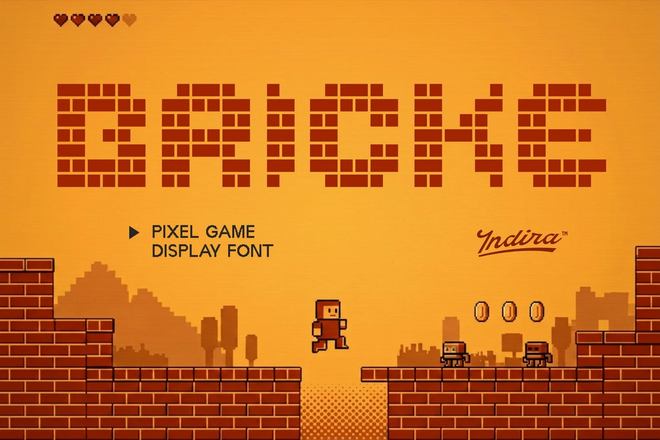
23 Awesome Arcade Fonts for Retro Gaming Projects
There is something undeniably magical about the bold, blocky typography of classic 80s and 90s arcade games.
Whether it is the glowing neon hues or the distinct pixelated edges, these fonts instantly transport us back to a golden era of gaming.
In this collection, we have gathered the best arcade fonts available to give your next creative project that perfect, coin-operated vintage vibe.
Game Paused - Classic Arcade Font
Game Paused is perfect for any pixel game project. This playful font offers six unique styles, including Regular, Slant, Outline, Extrude, Outline Slant, and Extrude Slant, evoking the iconic style of the 00s. Compatible with various software and simple to install, it’s ideal for unleashing your creative potential.
Arcade Zone - Video Game Font
Arcade Zone is a bold, comic display font inspired by retro arcade games. With its chunky shapes and fun character styles, it’s ideal for kids’ designs, gaming projects, and playful visuals. This typeface offers multilingual support and includes both OTF and TTF formats, bringing energetic, nostalgic vibes to posters, branding, and headlines.
Arcade Pixel - Modern Gaming Font
This is a retro pixel font that brings a nostalgic gaming vibe to your creative projects. Perfect for retro game designs, it’s also adaptable for movies, logos, posters, book covers, and more. With OTF, TTF, and WOFF formats included, this font will help your ideas stand out with a charming, pixelated flair.
Game Stage - Pixel Arcade Font
Game Stage is a playful and nostalgic typeface perfect for adding a fun twist to your projects. With bold, chunky shapes and vibrant colors, it channels the excitement of classic arcade games. Game Stage supports multiple languages and includes uppercase, lowercase, numerals, punctuation, and stylistic doodles, available in TTF and OTF formats.
Rocabe - Retro Arcade Font
Rocabe is a retro arcade font that captures the nostalgic essence of classic gaming. Blending pixelated charm with modern readability, it’s perfect for vintage-themed designs, indie games, and pixel art. Available in various formats, it offers multilingual support and accessible characters, making it a versatile choice for creative projects that seek a touch of authentic nostalgia.
Arcade Quest - 8Bit Gaming Font
Arcade Quest is a pixel-perfect font that captures the essence of ’80s arcades, offering nostalgia and functionality for modern designs. Ideal for game developers and designers, it includes standard glyphs in a TTF file, compatible with PC and Mac, and seamlessly integrates with major design software for a vibrant retro touch.
Retroid - Retro Arcade Font
Retroid is a vintage arcade-themed font that captures the charm of 8-bit console graphics with its pixelated design. Perfect for adding a nostalgic touch, this old-school typeface offers multilingual support, making it versatile for different projects.
Retro Pixel - Arcade Gaming Font
Retro Pixel is an arcade-themed font that captures the essence of classic gaming. Perfect for gaming logos and pixel art, this typeface merges retro charm with modern flair. Featuring OTF, TTF, and WOFF formats, it offers easy installation, multilingual support, and works seamlessly on Mac and Windows.
Oldbitz - Pixel Arcade Font
Oldbitz brings back the golden age of gaming with its bold, pixelated style. Perfect for game covers, posters, or album art, it combines retro vibes with a hint of vintage gothic flair. With two styles—Regular and Shadow—it offers versatility for any creative project. Its multilingual support and comprehensive set make designs truly stand out.
Warnet Crime - Arcade Pixel Font
Warnet Crime is a bold, futuristic pixel font perfect for bringing retro gaming nostalgia with a modern twist. With sharp, blocky edges and 8-bit-inspired geometry, it’s ideal for arcade-themed visuals, sci-fi projects, and tech branding. This font supports multiple languages and is available in OTF, TTF, and WOFF formats, making it a versatile choice for creative projects.
Arcade Funk - Modern Arcade Font
Arcade Funk is a vibrant, modern arcade-themed font that blends punk aesthetics with a touch of brutalism. Perfect for game interfaces, posters, and promotional materials, its unique design maintains striking legibility while injecting rebellious, futuristic energy into any project. Ideal for those seeking a bold and unconventional edge, Arcade Funk sets your designs apart.
Valmeria - Medieval Game Arcade Font
Step into the pixel kingdom with Valmeria, a unique arcade-themed font that merges medieval blackletter style with pixel art charm. Perfect for pixel games or vintage posters, it features Regular and Extrude styles, providing both clean and bold 3D looks. With a complete set of characters and multilingual support, it’s ideal for standout designs.
Pixel Bricke - Classic Arcade Font
Pixel Bricke is a pixel-based font that artfully captures the essence of retro arcade games. With its blocky, nostalgic design, it adds a fresh twist to classic gaming visuals. Ideal for game titles, graphics, and branding, Pixel Bricke delivers bold and memorable style, supporting formats like OTF, TTF, WOFF, and WOFF2.
Bitmap - Pixel Arcade Font
Bitmap is a nostalgic pixel font inspired by classic video games of the 8-bit and 16-bit eras. It offers clean, modern aesthetics with monospaced, blocky characters, perfect for game design, retro posters, and tech branding. With excellent readability, it’s ideal for both print and digital formats, supporting multiple languages to enhance your creative projects.
Bittera - Creative Arcade Font
Bittera is an arcade-themed font that revives retro 8-bit charm with a modern twist. Available in Regular for a classic pixel look and Rounded for a softer, playful vibe, it’s ideal for game titles, pixel art, and more. Bittera supports uppercase, lowercase, numbers, ligatures, punctuation, and multilingual text in OTF, TTF, and WOFF formats.
Alpharush - Retro Gaming Font
Alpharush is a nostalgic 8-bit typeface perfect for capturing the essence of classic arcade games. Ideal for pixel art and retro-themed designs, this unique bitmap font transports any project back to the vibrant 80s. Whether designing a game or creating themed artwork, Alpharush brings a touch of vintage gaming charm.
Pixel Bots - Old School Arcade Font
Pixel Bots is a retro pixel font that brings a nostalgic arcade feel to any creative project. Ideal for game design, movie posters, book covers, and more, this font adds a standout, vintage vibe. Simply download the ZIP file, extract it with WinRAR or WinZip, and start using the fonts with your designs.
Arteche - Y2K Arcade Font
Arteche is a nostalgic blend of retro gaming charm and early 2000s digital style. Its pixel-based design takes you back to classic arcade adventures while adding a touch of futuristic flair. Perfect for projects that celebrate early digital culture, the package includes OTF, TTF, and WOFF formats.
Best Free Arcade Fonts
Cyber Bytes - Free Arcade Font
Cyber Bytes is a futuristic pixel font with a retro arcade aesthetic inspired by cyberpunk visuals and old-school gaming. Its blocky letterforms make it perfect for gaming logos, esports branding, sci-fi posters, and digital-themed designs.
Digital 808 - Free Arcade Font
Digital 808 features a sleek electronic display style inspired by classic LED and arcade machine typography. The clean geometric characters are ideal for tech branding, gaming interfaces, futuristic posters, and synthwave-inspired artwork.
Game City - Free Arcade Font
Game City is a bold arcade-style display font designed with playful retro gaming energy. Its chunky characters and nostalgic vibe make it a great fit for game titles, children’s designs, YouTube thumbnails, and colorful poster layouts.
Start Signal - Free Arcade Font
Start Signal combines pixel-inspired details with a modern arcade look to create a stylish gaming font full of energy. It works especially well for esports graphics, retro game branding, streaming overlays, and futuristic title designs.